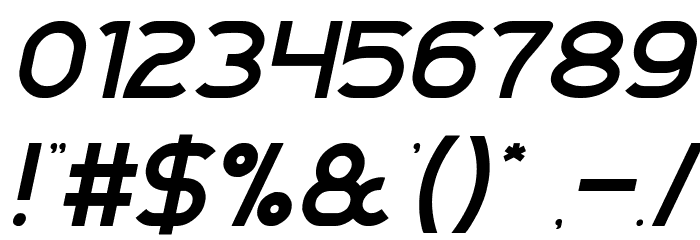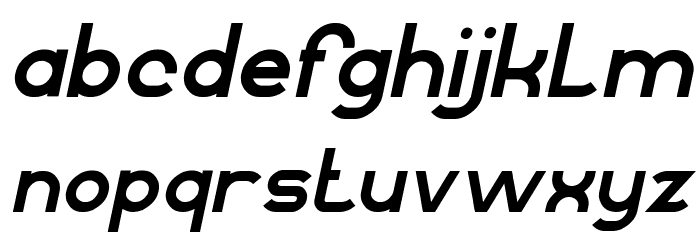
Agreement Italic Font
Agreement Italic Description
This font features a sleek, italicized style with a modern and dynamic appearance. The characters are slightly slanted, giving a sense of motion and fluidity. The strokes are consistent and smooth, with a medium contrast between thick and thin lines. The overall design is clean and contemporary, making it suitable for a variety of applications. The numbers and special characters maintain the same italicized style, ensuring uniformity across all elements.
| Use Case | Headlines, Logos, Branding |
| Proposed Projects | Ideal for branding, advertising, and editorial design projects where a modern and stylish look is desired. |